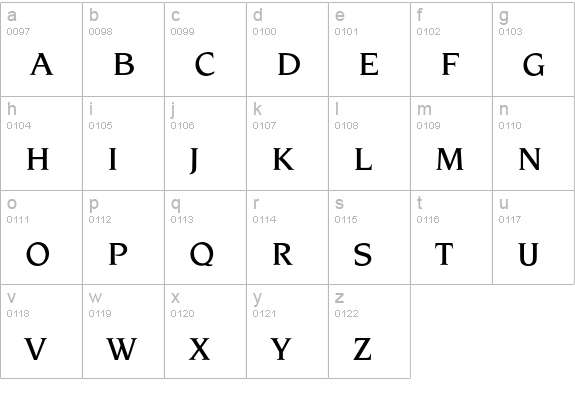
Novarese* Expert Medium is a balanced, medium-weight variant in the Novarese* typeface family \xE2\x80\x94 well suited to sub-headlines, navigation, and balanced editorial work.
Novarese Expert Medium is a versatile and elegant serif font designed for professional and creative projects. With its balanced proportions and classic design, this font exudes sophistication and readability. The medium weight strikes the perfect balance between boldness and delicacy, making it suitable for a wide range of applications. Novarese Expert Medium is a timeless choice for editorial design, branding, and marketing materials. Its clean lines and sharp serifs give a refined and polished look to any project. Whether used for headlines or body text, this font ensures a harmonious and professional appearance. Best of all, Novarese Expert Medium is available for free download at FontsMarket.com. This means you can easily access and use this high-quality font for your projects without any cost. Don't miss the opportunity to enhance your designs with the elegance and versatility of Novarese Expert Medium. Download it today and elevate your typography game to the next level!